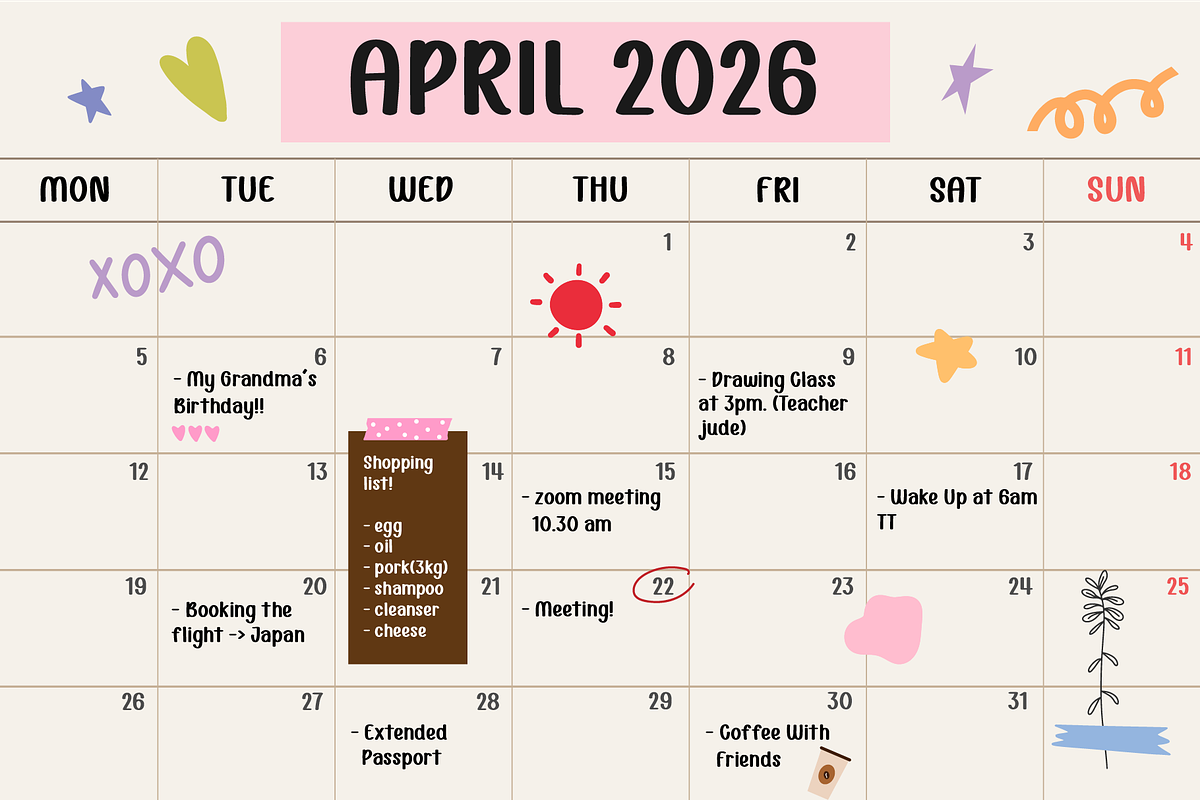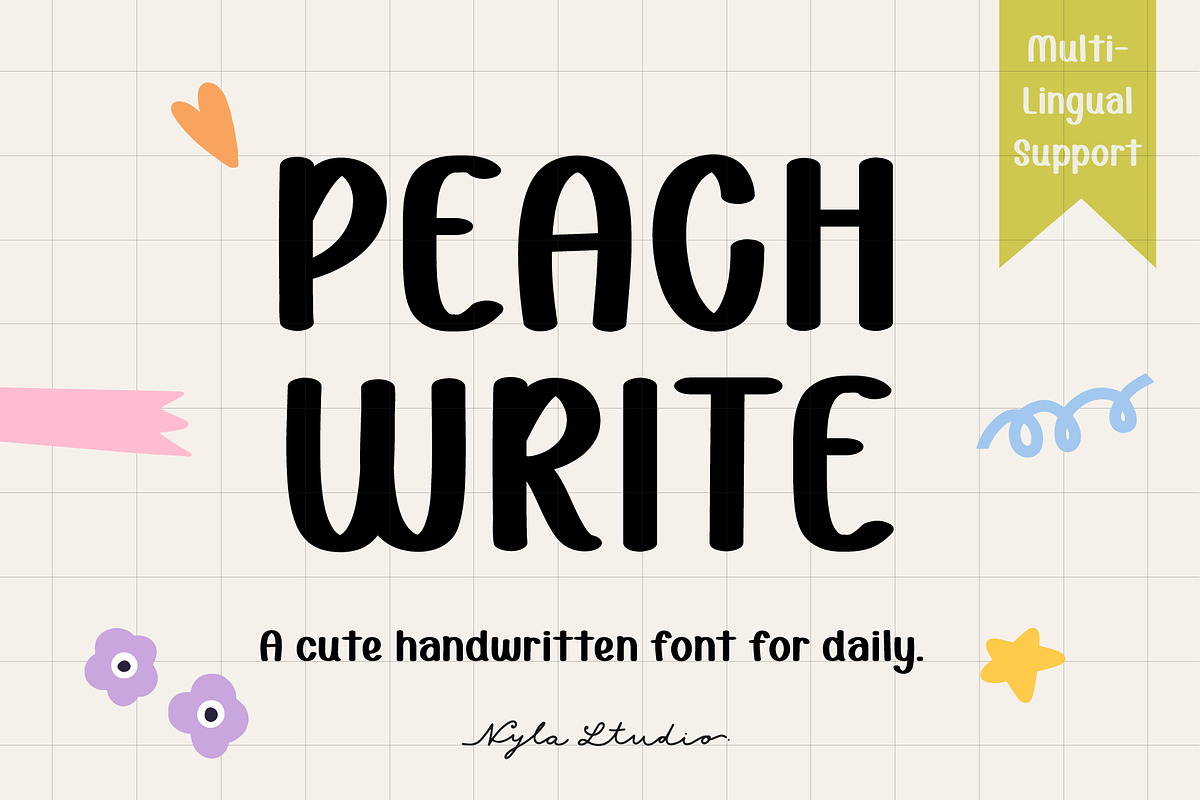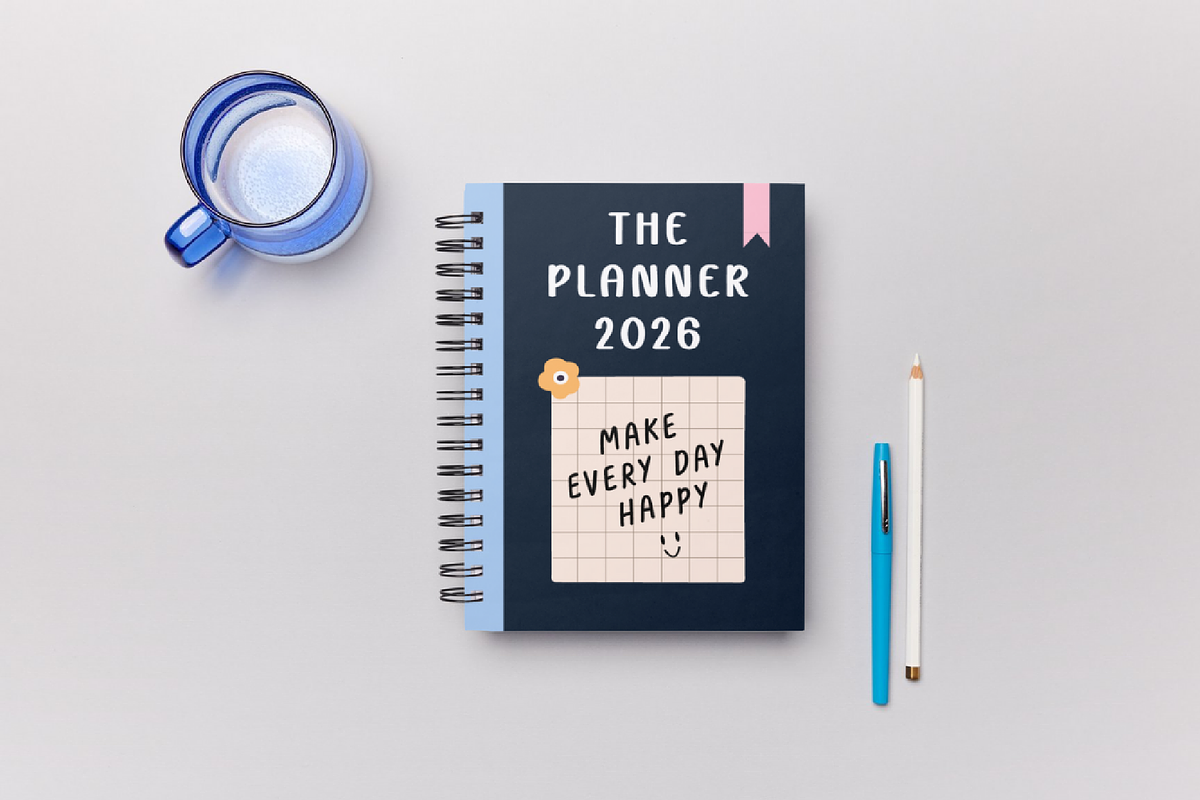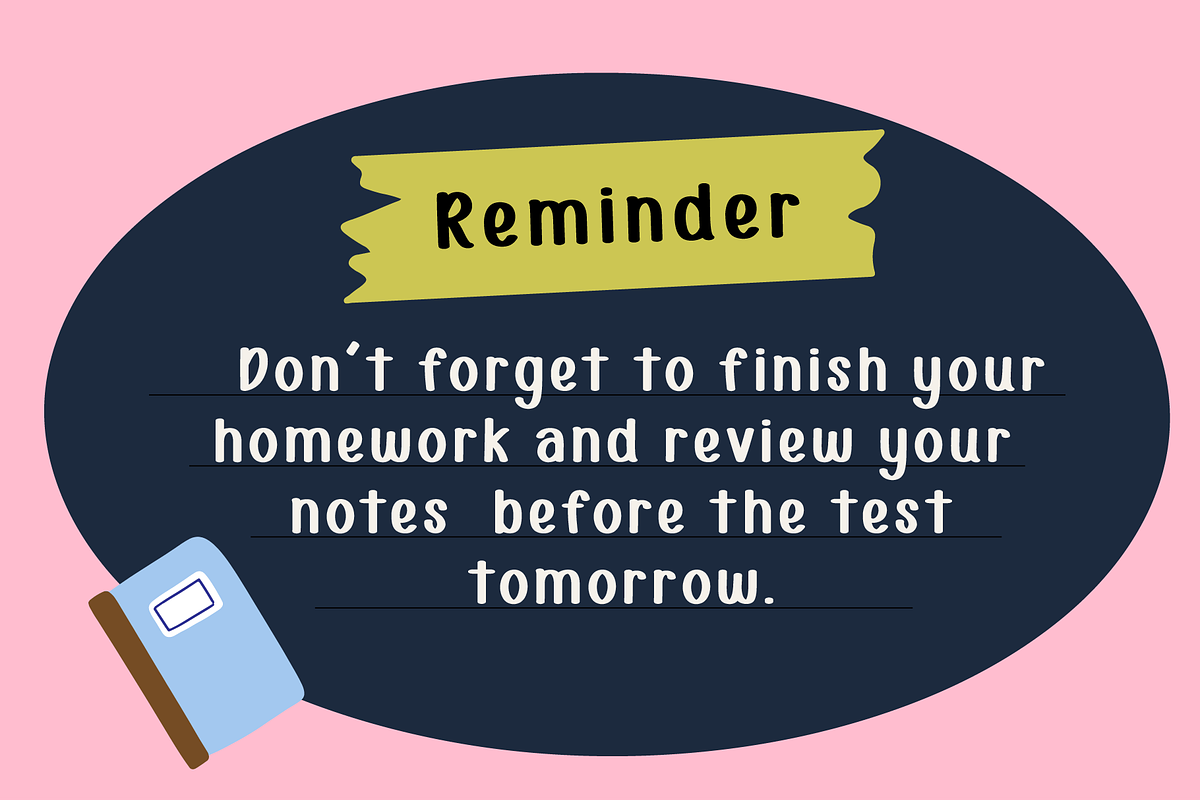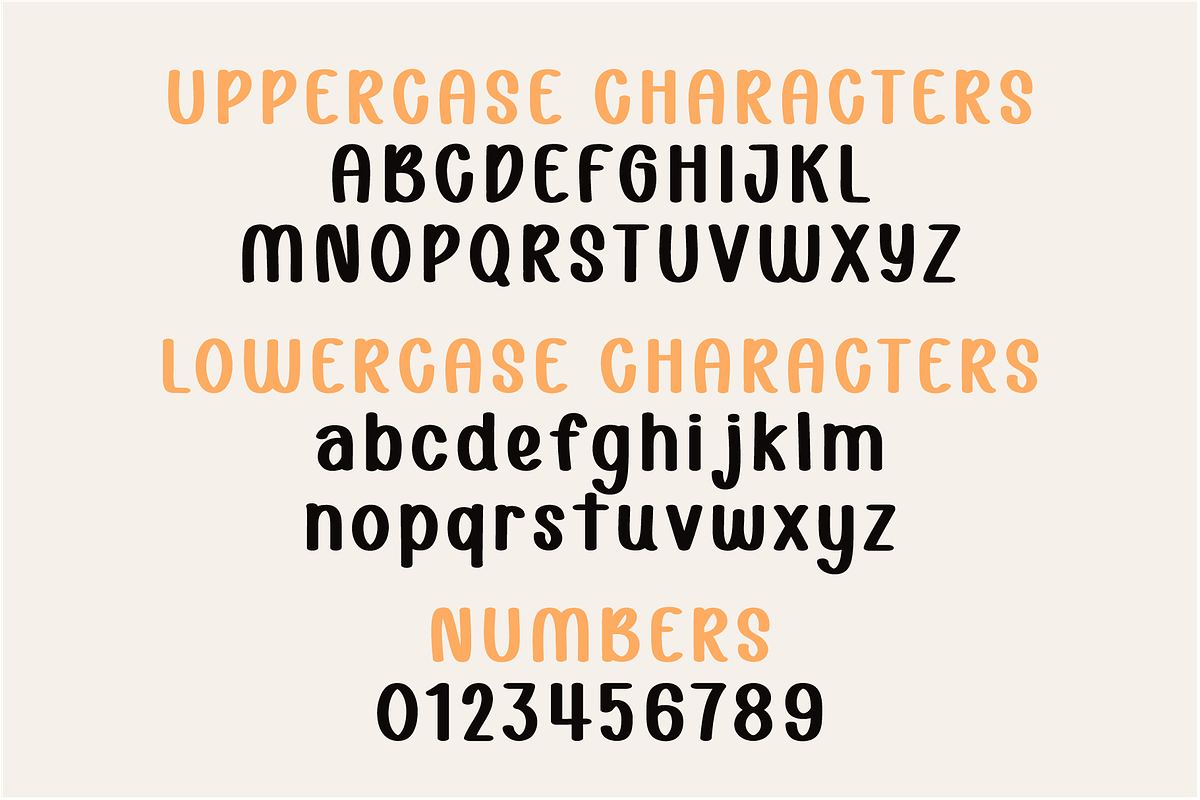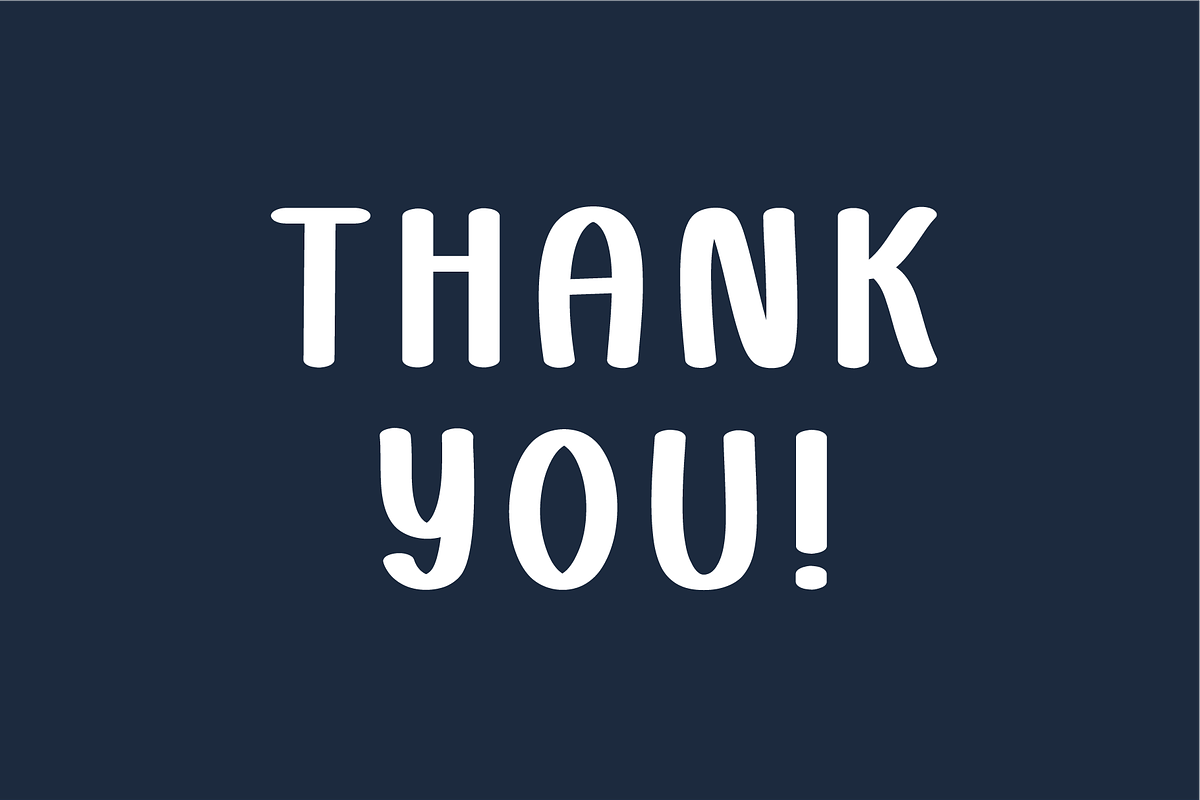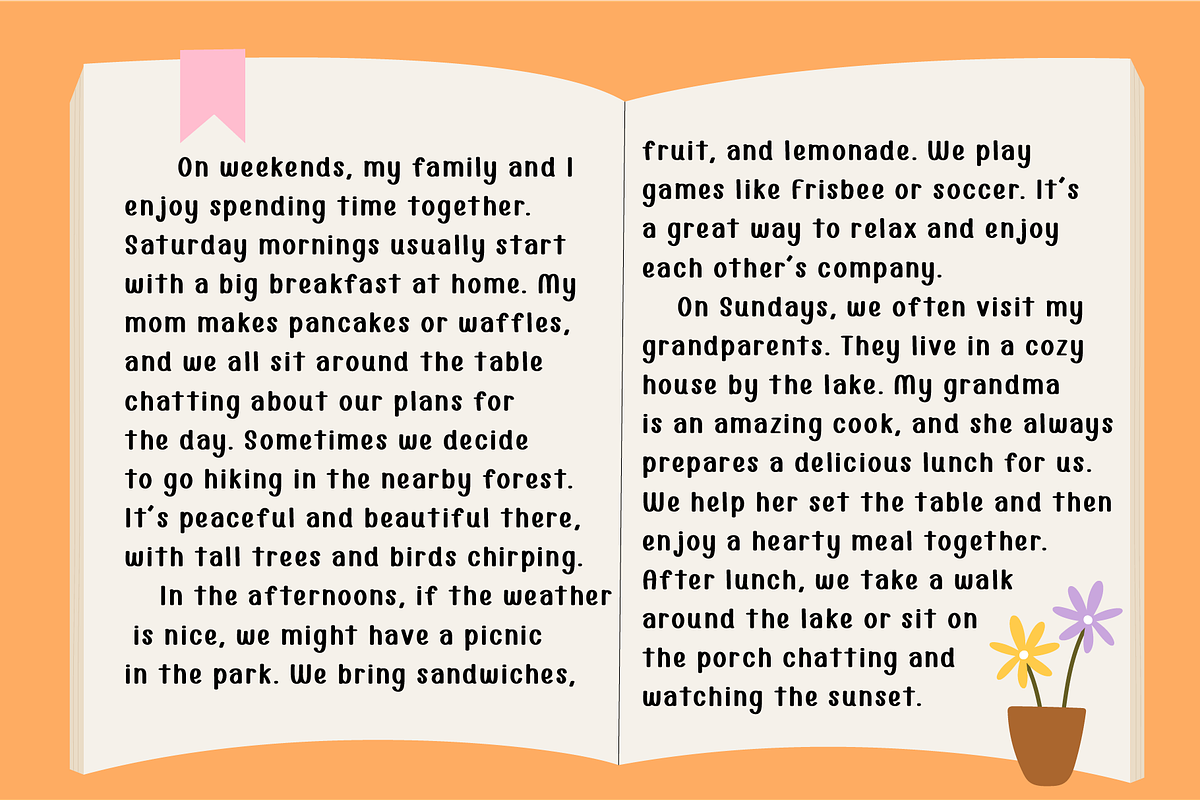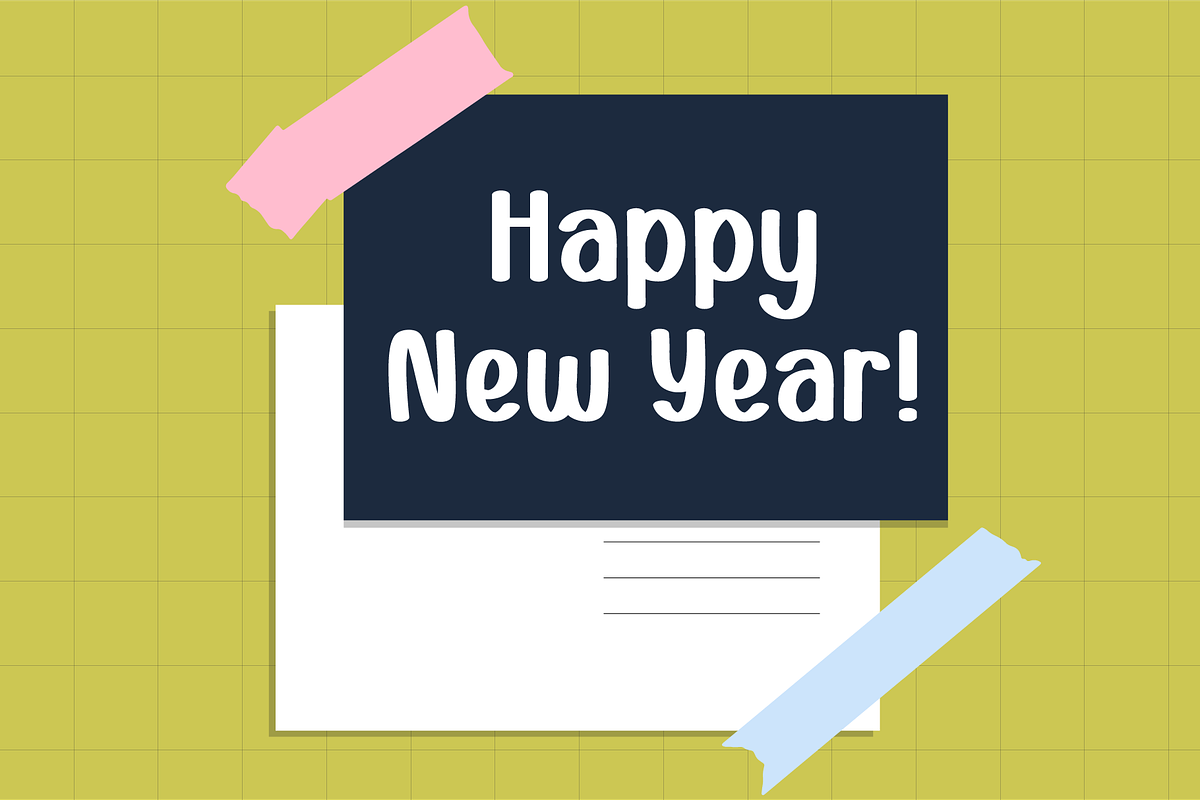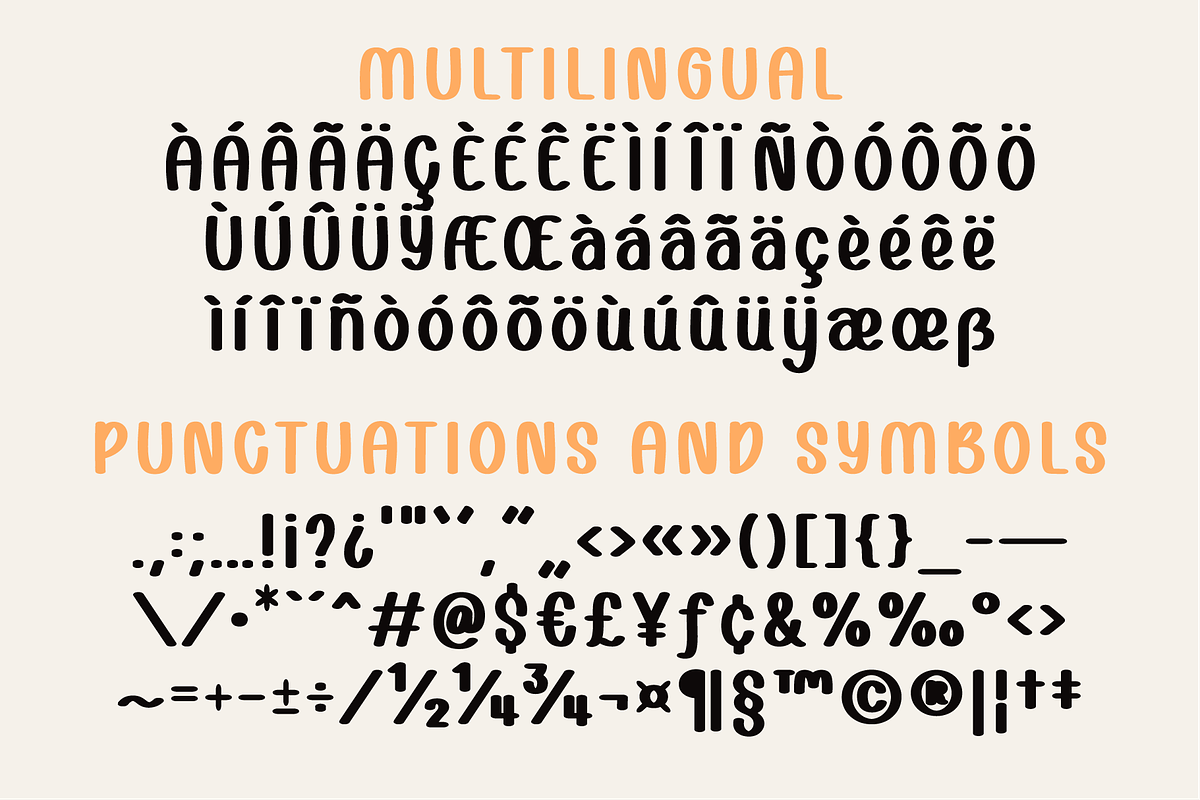
PeachWrite font
PEACHWRITE is a cute handwritten font. Perfect for everyday note taking such as writing diary or note, creating posters, logos, greeting cards, packaging and so much more!
PeachWrite Font Features
- Extended punctuation.
- Multilingual Characters support.
- Full set of alphabet both uppercase and lowercase.